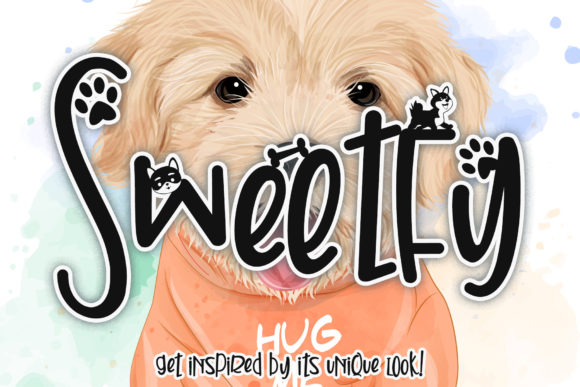
Prepare to be captivated by the enchanting beauty of Sweetfy Font, a stunning script font family that will elevate your creative projects to new heights. Its delicate strokes and graceful curves exude a charm that is both timeless and utterly captivating.
Indulge in the boundless possibilities that Sweetfy presents, whether you seek to craft captivating designs for your website, add a touch of elegance to your social media posts, or create heartfelt and personalized cards for your loved ones. With Sweetfy, your imagination knows no limits.
The Sweetfy Font family is not merely a collection of digital characters; it is an artistic masterpiece that embodies the essence of creativity and self-expression. Let your words dance across the screen or leap from the page, adorned with the stylish elegance of Sweetfy. Experience the joy of transforming ordinary text into extraordinary works of art.
Unleash your artistic flair and embark on a creative journey with Sweetfy. Design eye-catching logos that command attention, create stunning invitations that leave a lasting impression, or craft beautiful posters that ignite the imagination. The possibilities are endless, and the results are always breathtaking.
With Sweetfy, you hold the key to unlocking your creative potential. Embrace its charm, let your imagination soar, and witness the transformation of your creative visions into tangible works of art. Make your mark on the world with Sweetfy, and leave a lasting legacy of creativity and beauty.